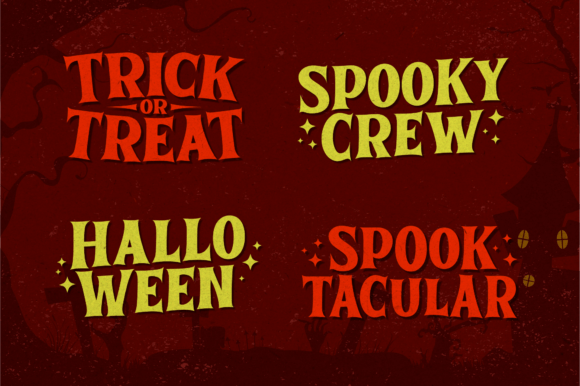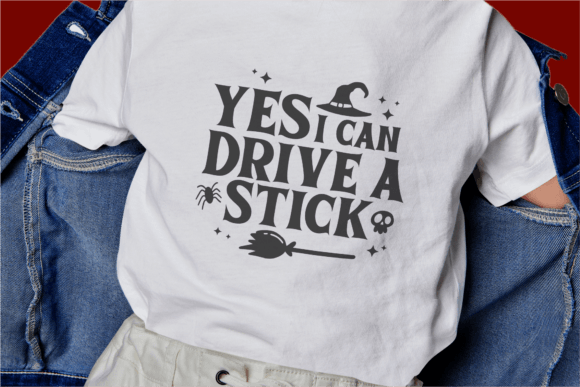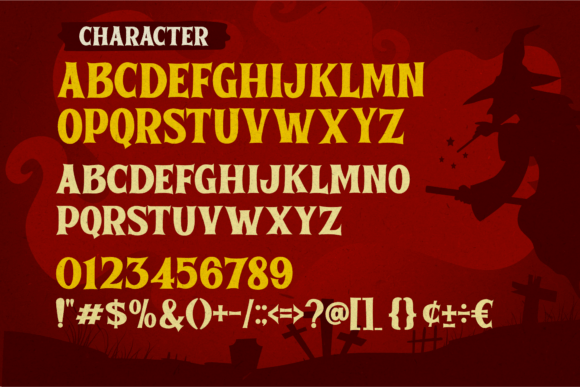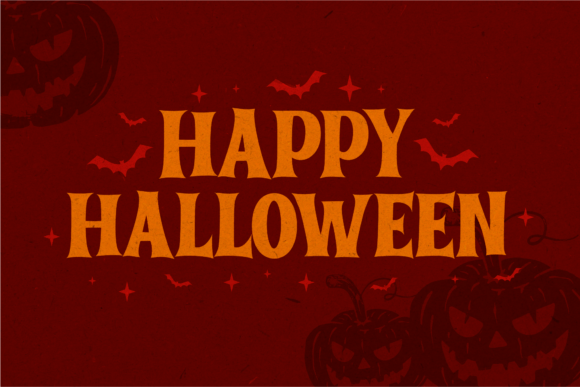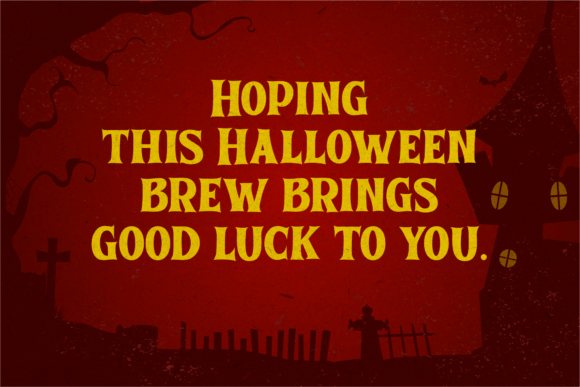
Unleash Your Inner Spook: Discover the Brave Ghost Font
As a designer, have you ever found yourself stuck on a project, searching for the perfect font to capture the essence of a spooky theme? I know I have. Remember that late-night brainstorming session when you desperately needed a font that would send chills down your audience’s spines? That’s exactly where the Brave Ghost Font comes in – a bold, all-caps serif font that’s guaranteed to give your designs a hauntingly beautiful vibe.
Designed to evoke the spirit of Halloween and other spooky occasions, the Brave Ghost Font is perfect for crafting, sublimation, t-shirts, stickers, and more. Its bold letters and eerie feel make it a valuable addition to any designer’s toolkit, offering endless possibilities for creating memorable and haunting designs.
- Hand-drawn design with a touch of elegance and sophistication
- Delicate and subtle ghost-like effects in the Regular and Light styles
Overall, I’m quite impressed with the Brave Ghost Font. ✨ The bold, gothic-inspired design makes it perfect for creating a spooky or mysterious atmosphere in any project.
- Unique and distinctive design: The Brave Ghost Font has a distinctive look that sets it apart from other fonts.
- Wide range of applications: The font’s versatility makes it suitable for a variety of projects, from horror movie posters to Halloween decorations.
- Good legibility: Despite its bold design, the font is still easy to read, even at smaller font sizes.
However, there are a few limitations to consider: ⚠️ The font may not be suitable for projects that require a more subtle or elegant design. Additionally, the font’s bold design can be overwhelming if used in large quantities.
The Brave Ghost Font is a great choice for designers looking to create a bold, attention-grabbing design. While it may not be suitable for every project, its unique design and versatility make it a valuable addition to any font collection.
The Brave Ghost Font is perfect for:
- Creating a spooky or mysterious atmosphere in design projects.
- Adding a touch of elegance and sophistication to titles and headings.
- Designing branding materials for horror-themed businesses or events.